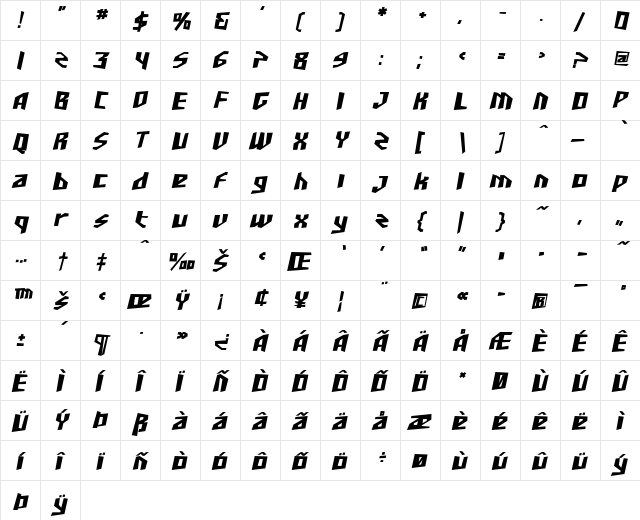
SF Junk Culture Bold Oblique
Design Context for SF Junk Culture Typeface
SF Junk Culture is a composed and adaptable typeface that performs quietly and consistently across a wide range of design contexts. Its italic angle brings a sense of urgency and motion to the letterforms. The heavy weight commands attention and anchors typographic hierarchies.
Pro Tip: Use SF Junk Culture for emphasis, pull quotes, and subheadings where its slanted energy can add rhythm to the layout.